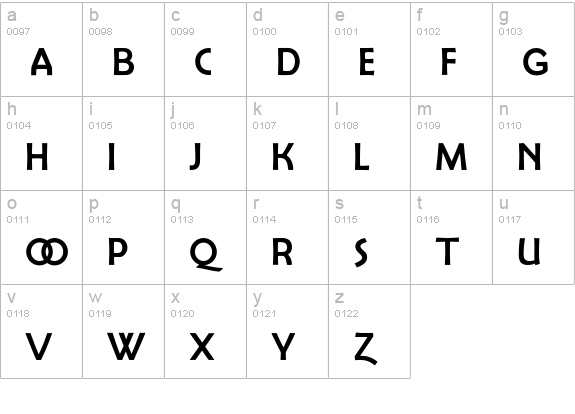
Berlinsans-RomanExpert Font Details
Berlinsans-RomanExpert is a stylish and versatile typeface that exudes elegance and sophistication. With its clean lines and modern aesthetic, this font is perfect for a wide range of design projects, from branding to editorial design. The sleek and professional look of Berlinsans-RomanExpert makes it a popular choice among designers looking to make a bold statement. What sets Berlinsans-RomanExpert apart is its unique blend of classic and contemporary design elements, making it a truly timeless font that will never go out of style. Whether you're working on a magazine layout, website design, or logo creation, Berlinsans-RomanExpert is sure to elevate your project to the next level. And the best part? Berlinsans-RomanExpert is completely free to download at FontsMarket.com. So you can add this stunning font to your collection without breaking the bank. Don't miss out on the opportunity to elevate your designs with Berlinsans-RomanExpert today!